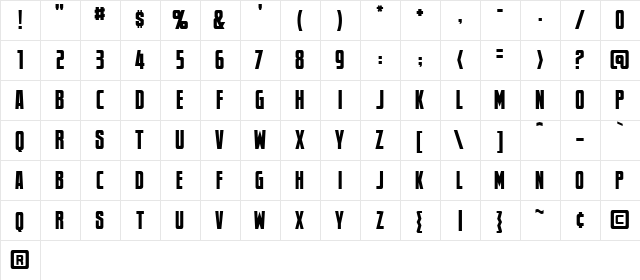
Newsflash BB Regular
| Foundry | Nate Piekos - Blambot.com |
| Designer | Nate Piekos - Blambot.com |
Design Context for Newsflash BB Typeface
Newsflash BB is a composed and adaptable typeface that performs quietly and consistently across a wide range of design contexts.